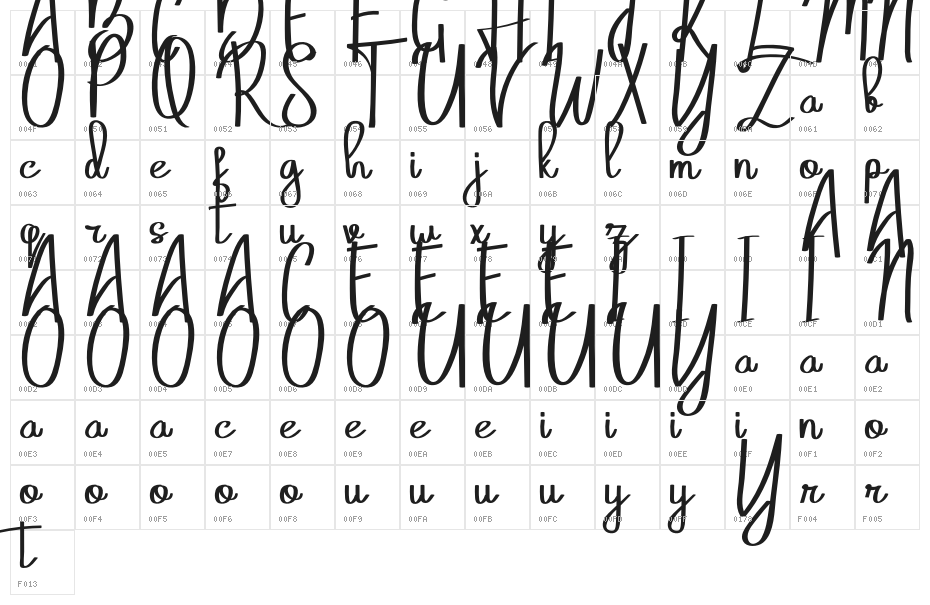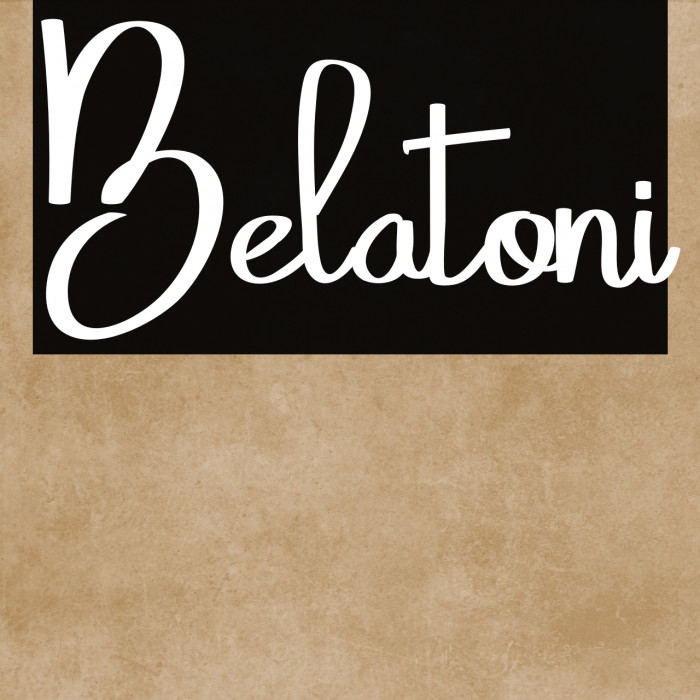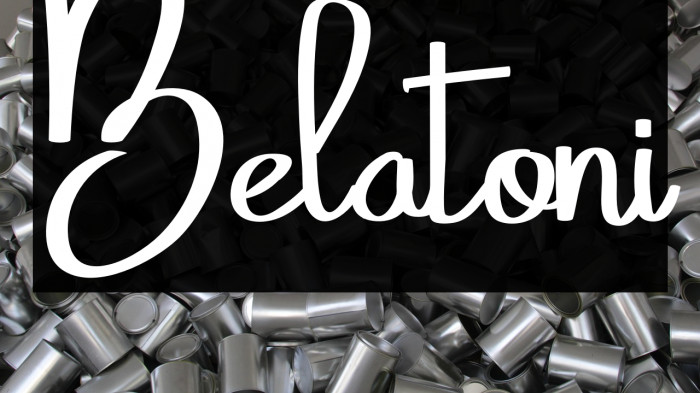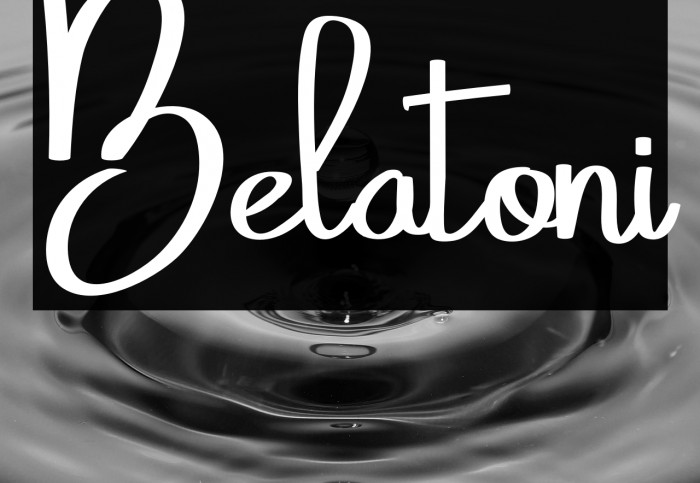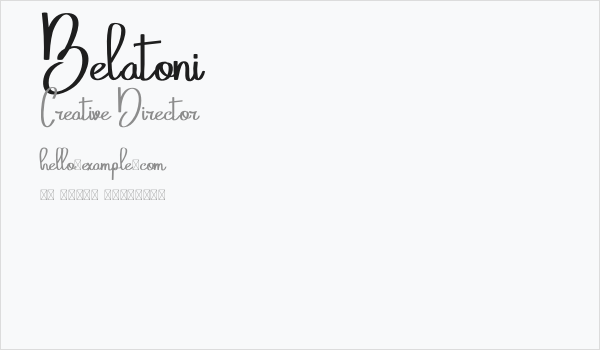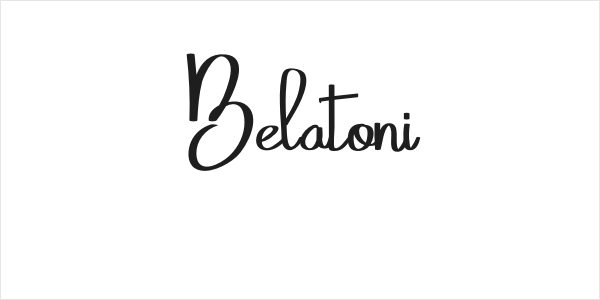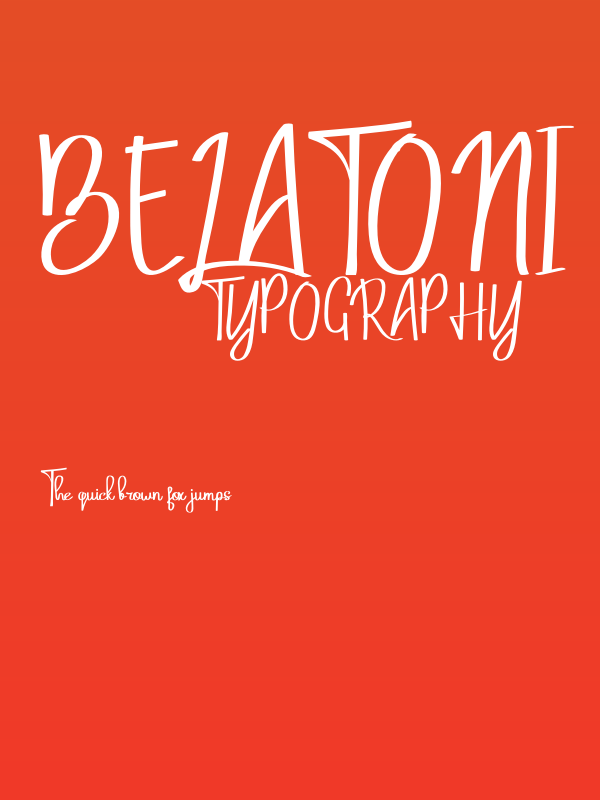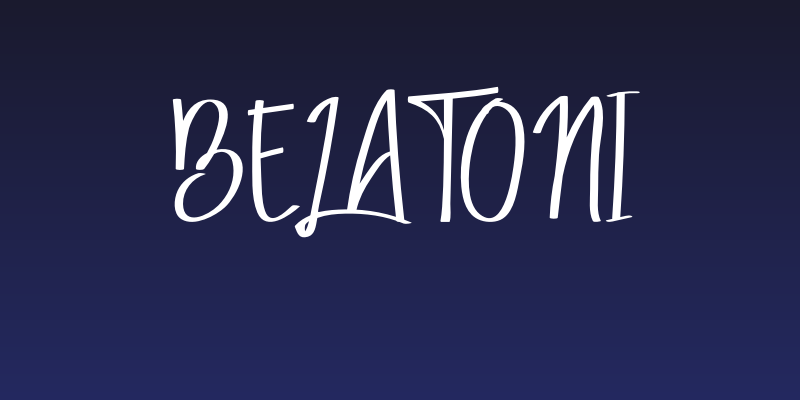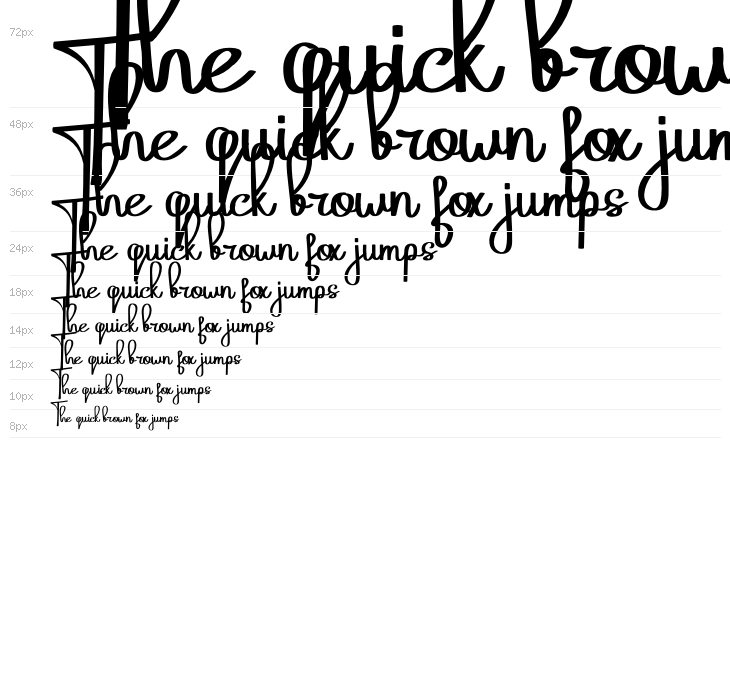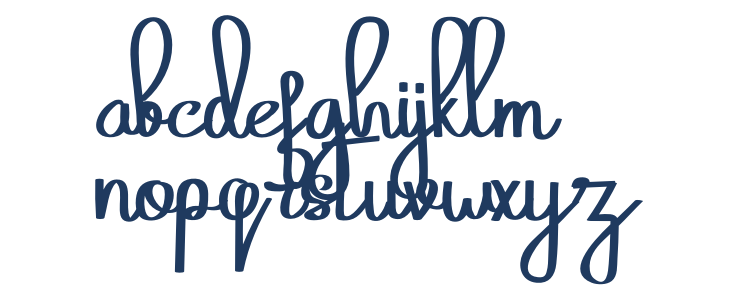
Belatoni Font
Belatoni Description
This font features a dynamic and fluid script style, characterized by its elegant and flowing letterforms. The uppercase letters exhibit a playful yet sophisticated design, with varying stroke widths that add a sense of movement and grace. The lowercase letters maintain a consistent style, complementing the uppercase with their smooth curves and loops. The overall appearance is both modern and artistic, making it suitable for creative projects. The font's unique style is further enhanced by its moderate contrast in stroke thickness, providing a balanced and visually appealing look.
| Proposed Projects | Ideal for wedding invitations, branding, greeting cards, and artistic projects. |